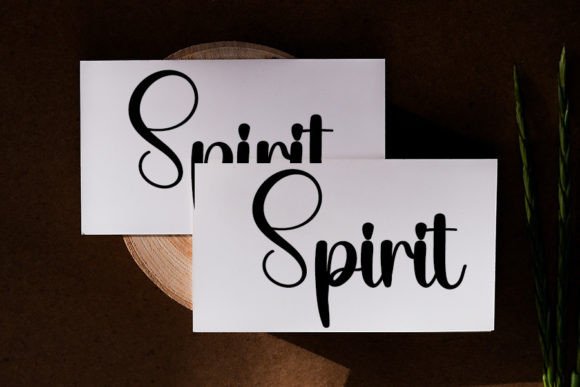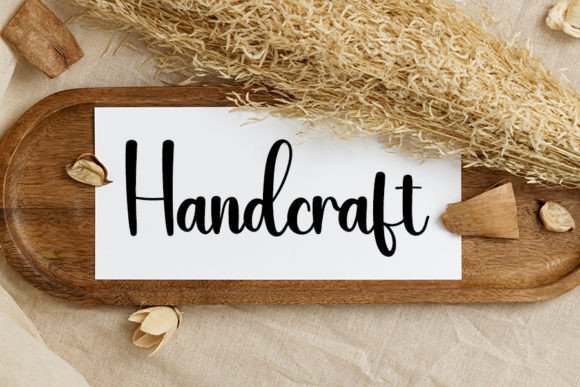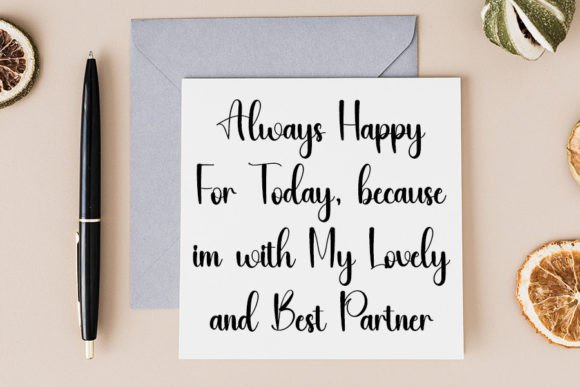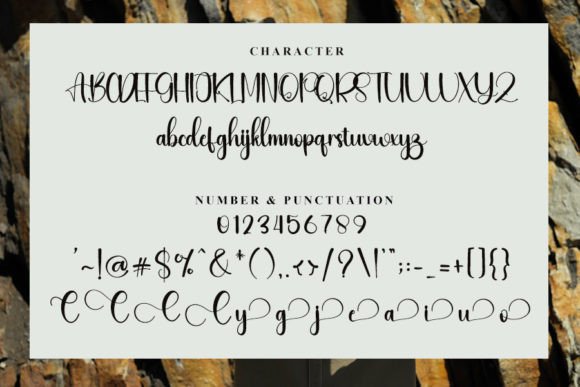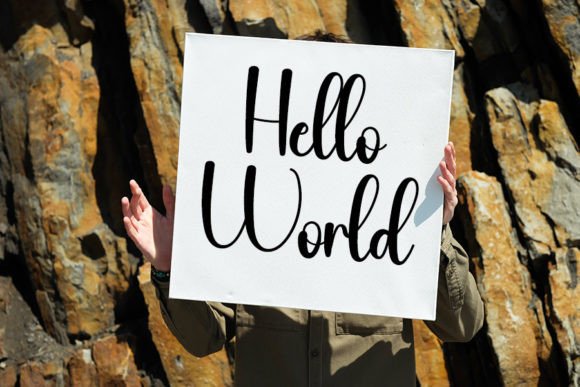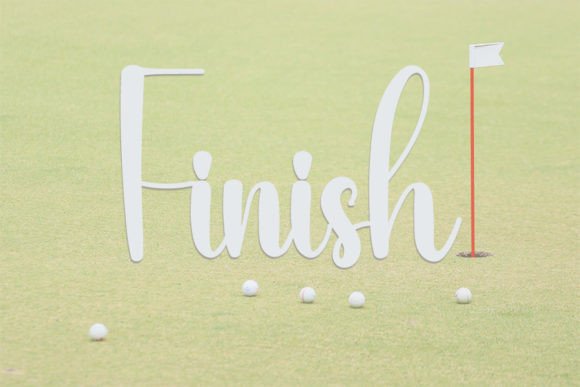
Caddy Font: Elevate Your Designs with Timeless Elegance
In the world of typography, a well-crafted font can make all the difference in transforming a design from ordinary to extraordinary. For designers and crafters seeking a stylish and sophisticated touch, the Caddy Font is an exceptional choice. Inspired by timeless classic calligraphy, Caddy is a contemporary handwritten font that exudes elegance and refinement.
The Inspiration Behind Caddy Font
Caddy Font is a masterful blend of traditional calligraphy and modern sensibilities. Its creator drew inspiration from the classic scripts of the past, infusing them with a fresh and contemporary atmosphere. The result is a font that feels both nostalgic and cutting-edge, perfect for designers looking to add a touch of sophistication to their projects.
Key Features of Caddy Font
- Stylish Handwritten Design: Caddy boasts a beautiful, handwritten design that adds a personal touch to any project.
- Contemporary Atmosphere: With its clean lines and balanced proportions, Caddy feels both modern and approachable.
- Impeccable Form: Each glyph and character is meticulously crafted to ensure a high level of legibility and aesthetic appeal.
- Balanced and Varied: The font features a variety of characters and ligatures, allowing for a high degree of creative flexibility.
Caddy Font offers numerous benefits for designers and crafters looking to elevate their projects:
- Enhanced Visual Appeal: With Caddy, you can add a touch of elegance and sophistication to your designs, setting them apart from the ordinary.
- Versatility: The font’s versatility makes it suitable for a wide range of applications, from branding and advertising to packaging and digital media.
- Time-Saving: With Caddy, you can achieve professional-looking results without spending hours designing custom typography from scratch.
Use Cases for Caddy Font
Caddy Font is an excellent choice for a variety of design projects, including:
- Branding and Logo Design: Create a lasting impression with a custom logo that showcases your brand’s personality and style.
- Wedding and Event Stationery: Add a touch of romance and sophistication to your wedding invitations, save-the-dates, and other event materials.
- Packaging Design: Stand out on store shelves with eye-catching packaging that features elegant, high-end typography.
- Digital Media: Use Caddy to create engaging social media graphics, blog posts, and other digital content that resonates with your audience.
In conclusion, Caddy Font is a stylish and sophisticated handwritten font that offers a unique blend of classic elegance and modern flair. With its impeccable form, balanced design, and PUA encoding, Caddy is an excellent choice for designers and crafters seeking to elevate their projects. Whether you’re working on branding, packaging, digital media, or event stationery, Caddy Font is sure to make a lasting impression.